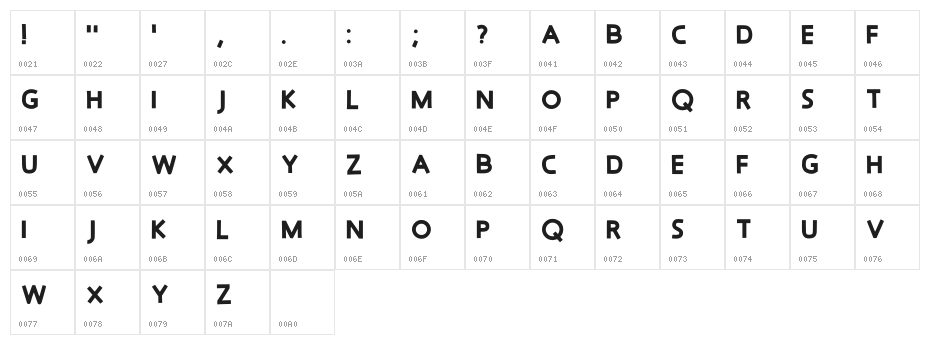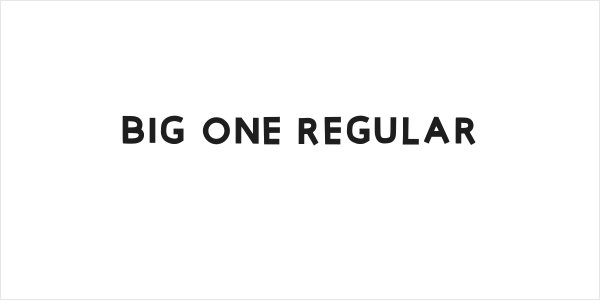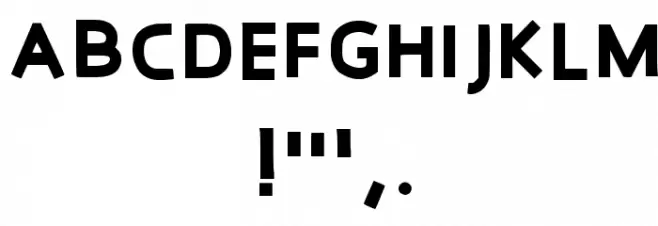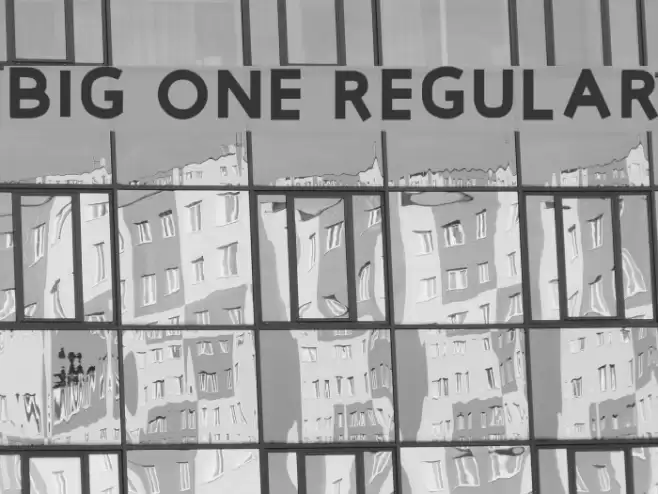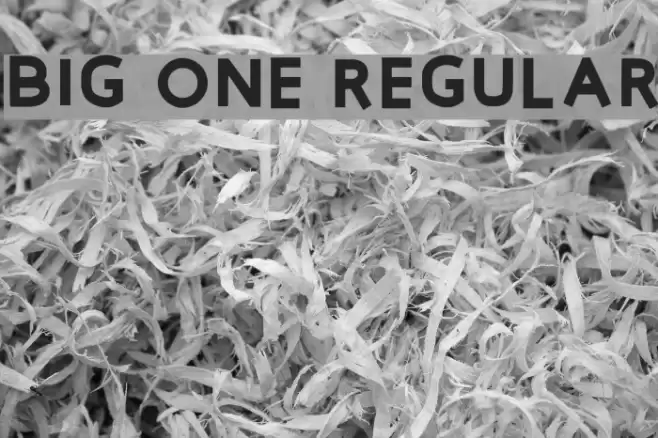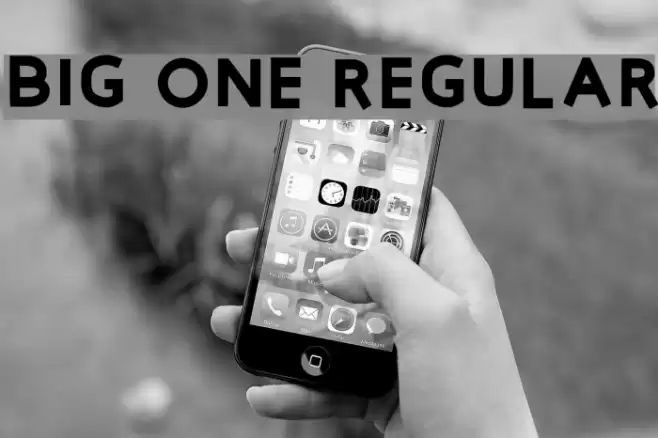
Big One Regular Font
Big One Regular Description
This font features a bold and modern sans-serif design, characterized by clean lines and a strong presence. The uppercase letters are uniform in height, with a slight geometric influence that gives them a contemporary feel. The lowercase letters maintain a consistent style, complementing the uppercase with their rounded edges and balanced proportions. The numerals are clear and easy to read, making them suitable for a variety of applications. Special characters are designed with the same attention to detail, ensuring they integrate seamlessly with the rest of the typeface.
| Proposed Projects | Ideal for branding, advertising, headlines, and digital media where a strong, modern presence is needed. |